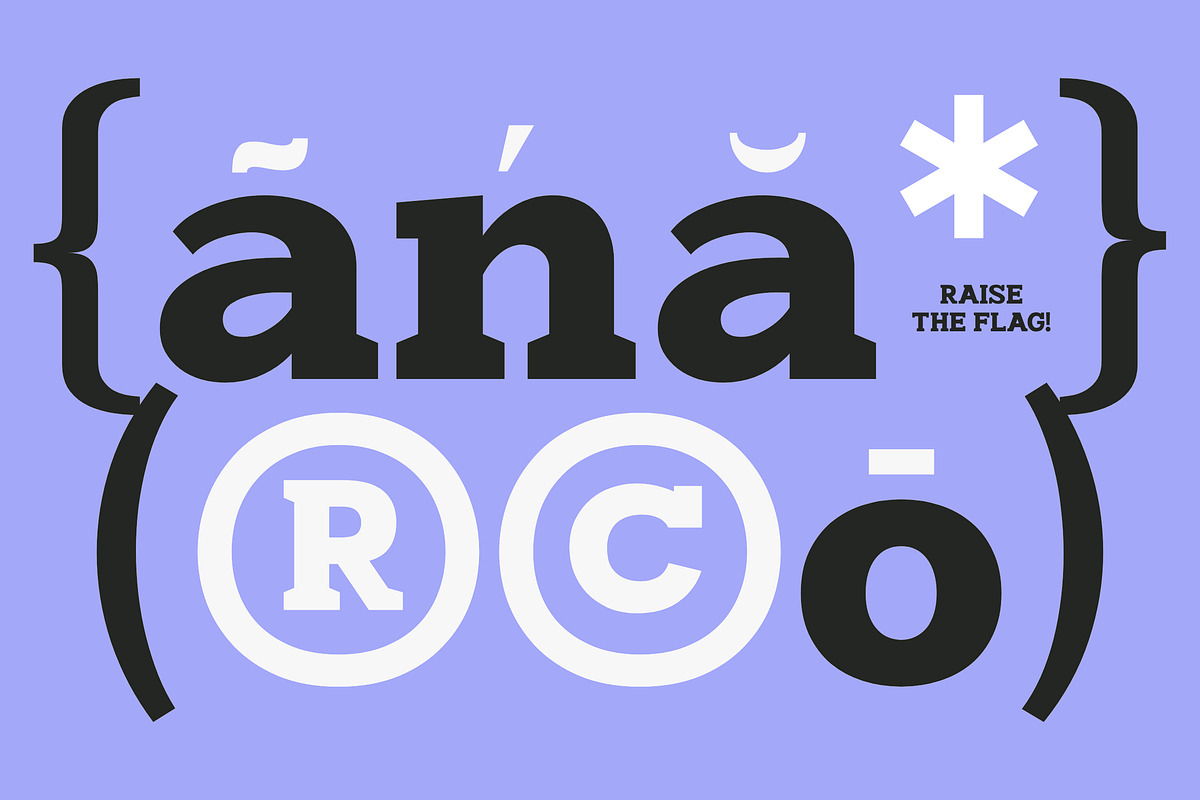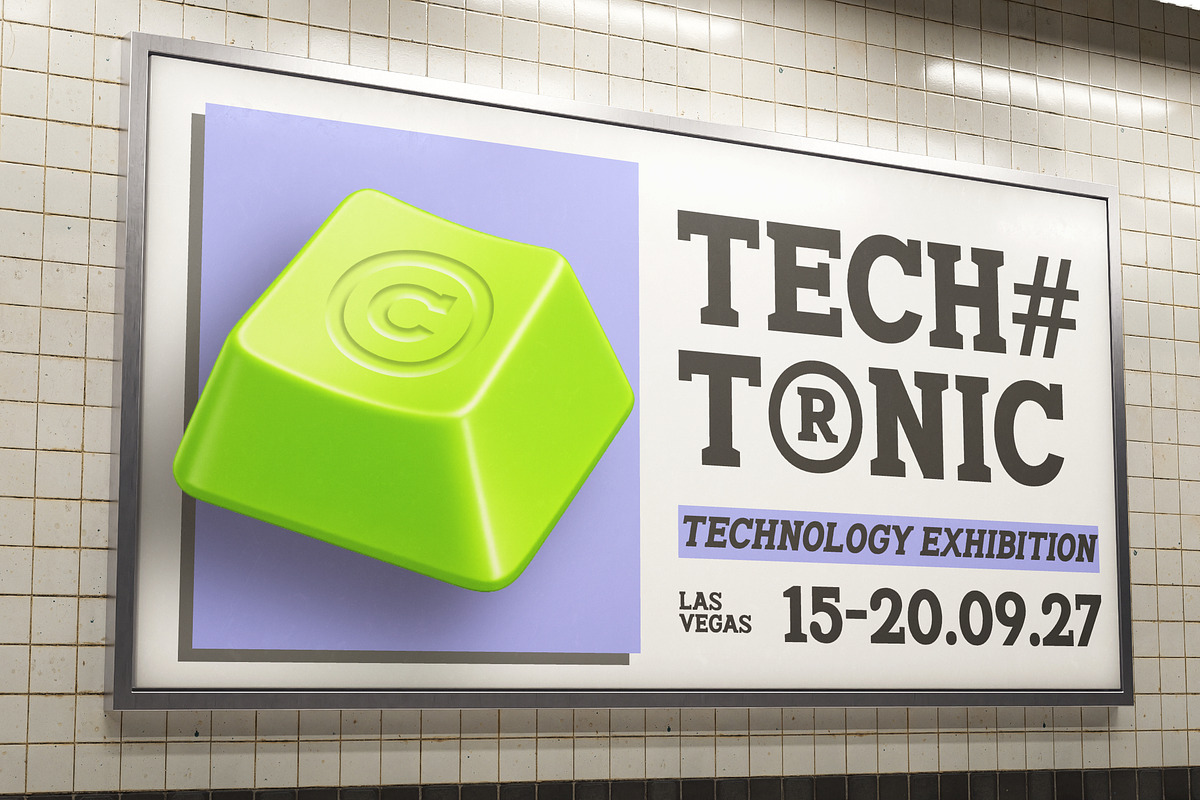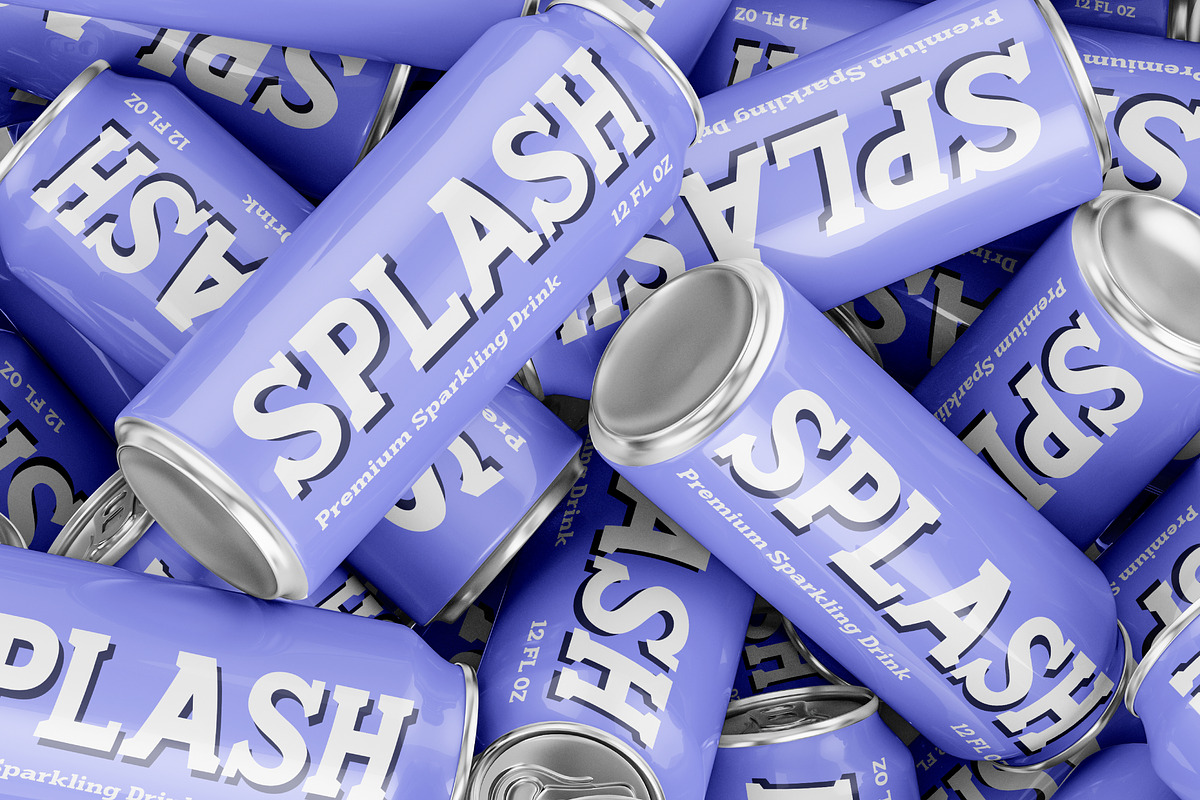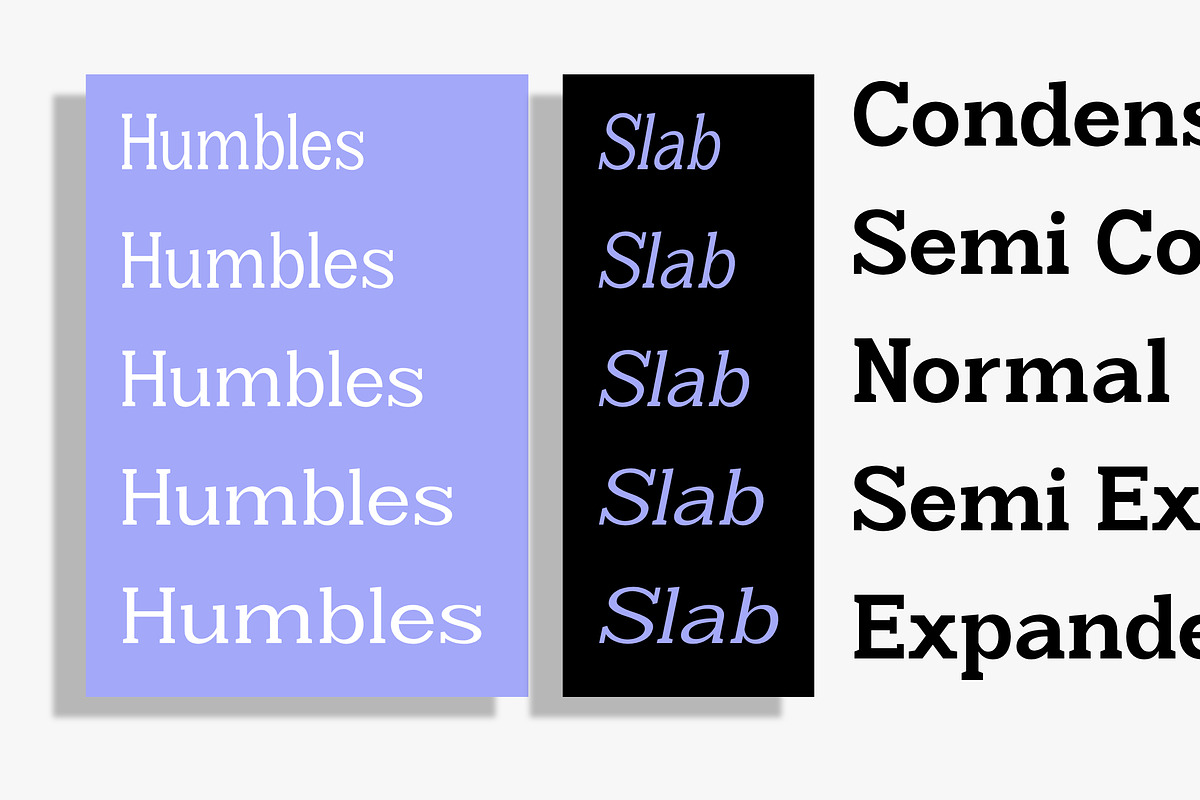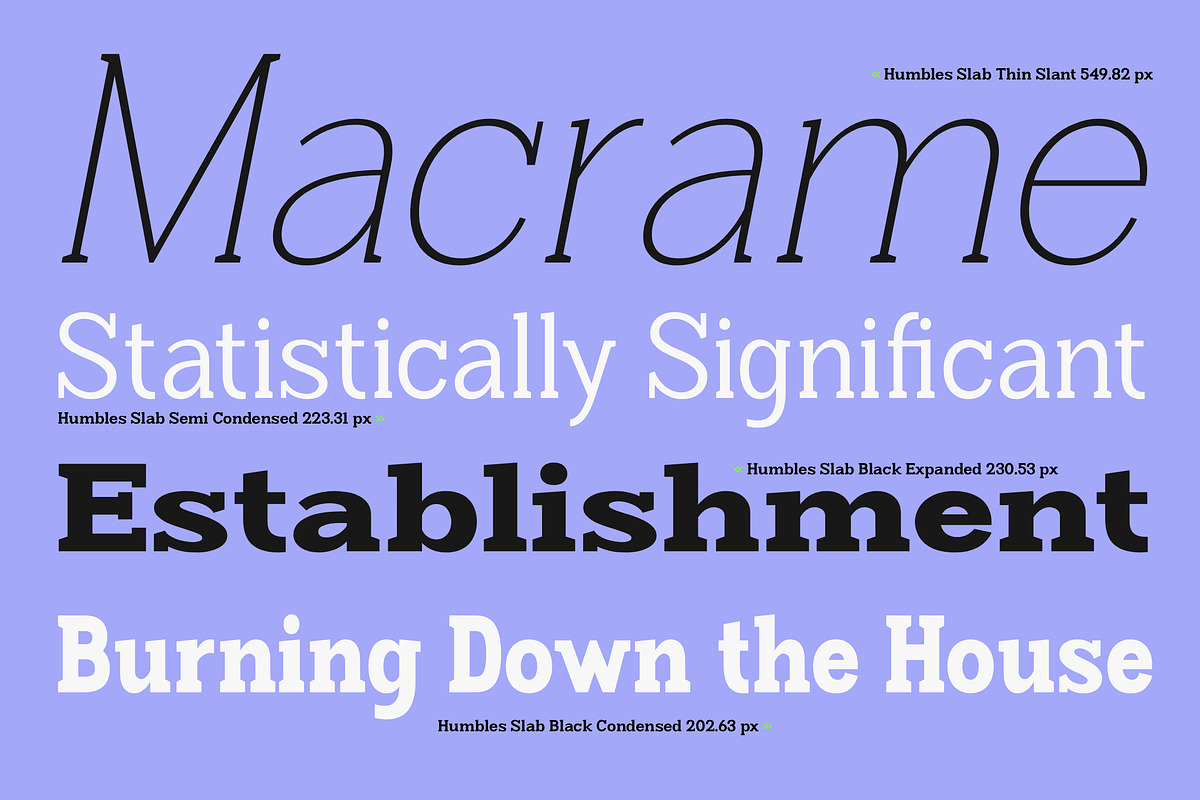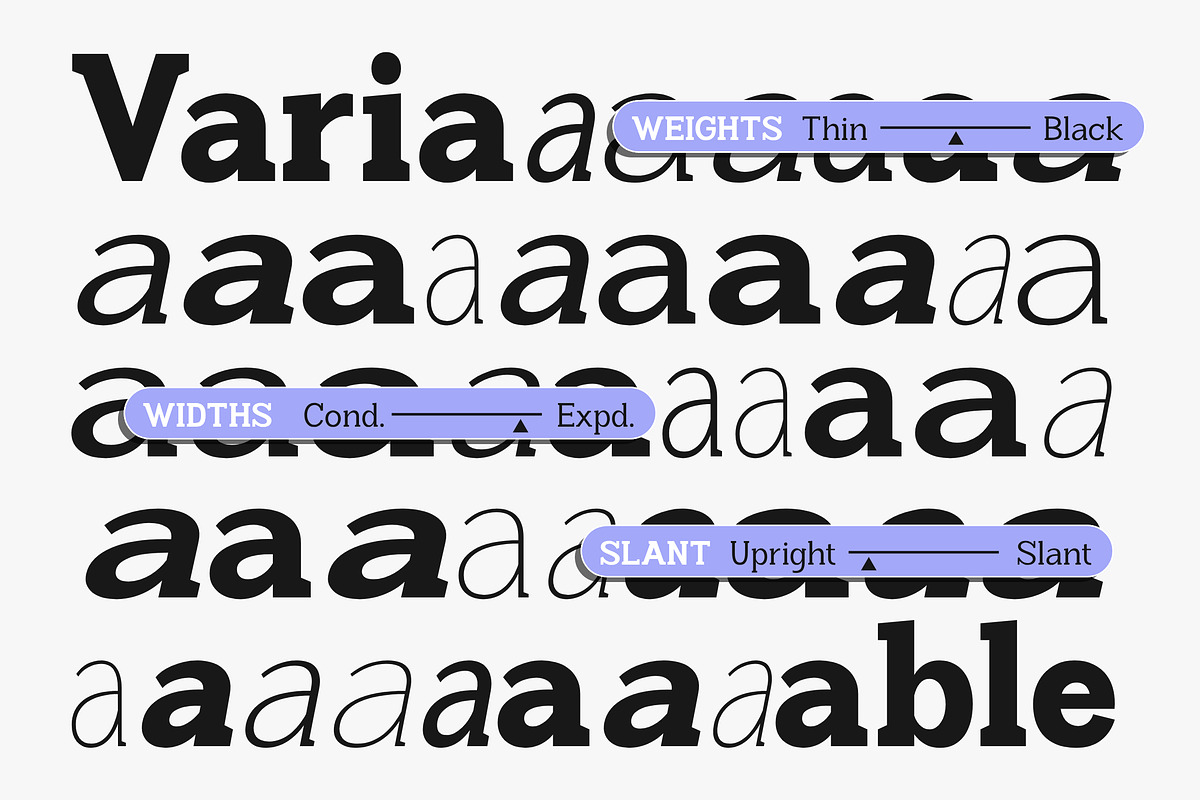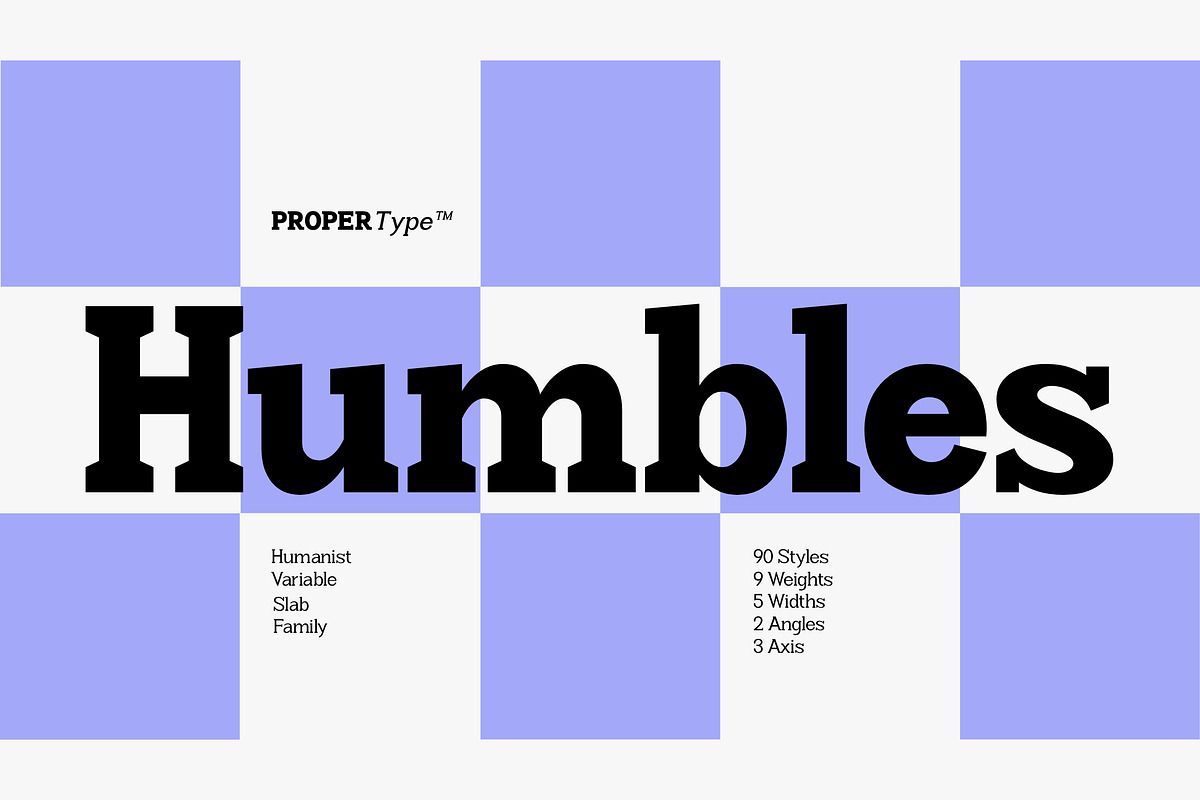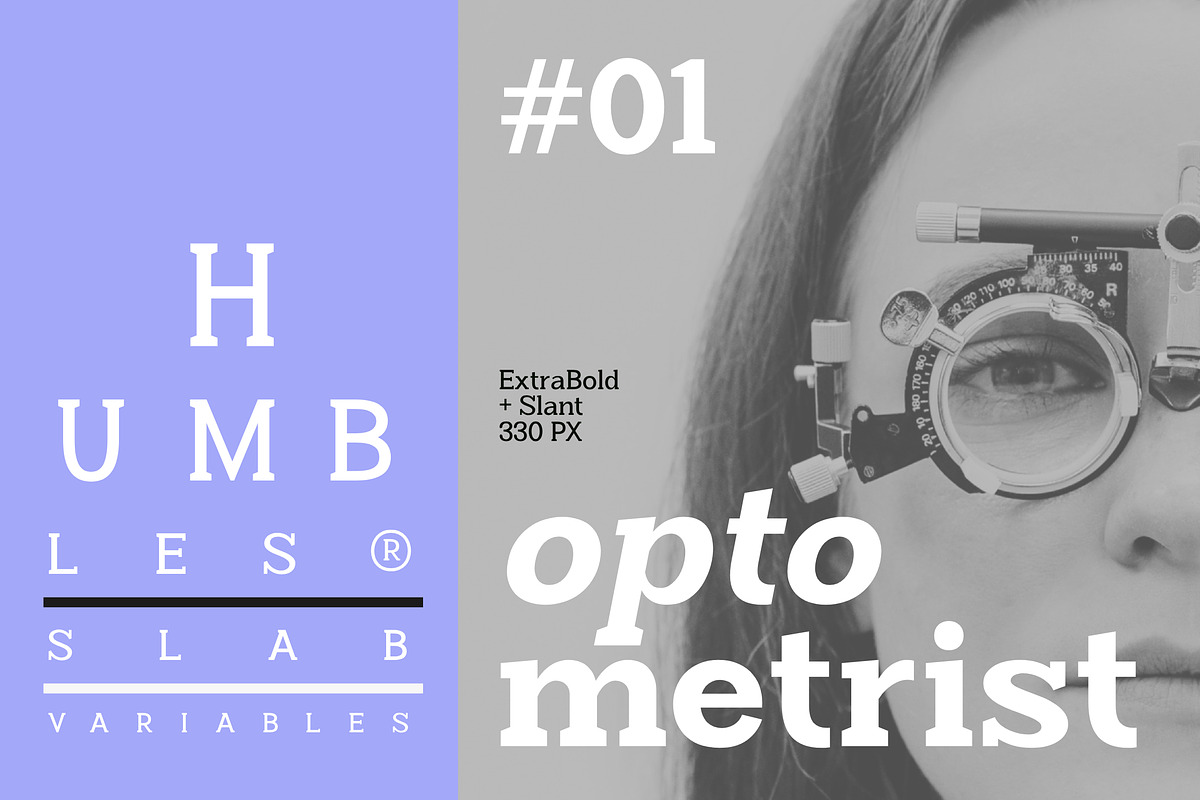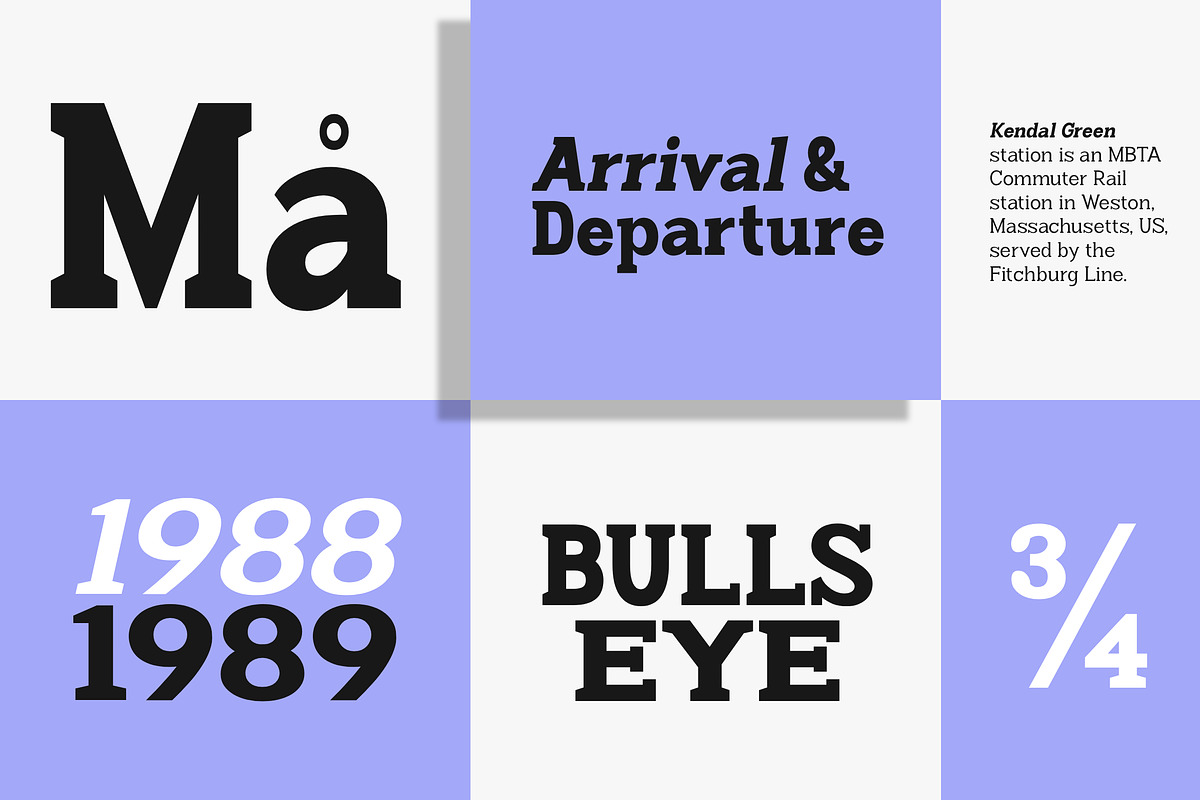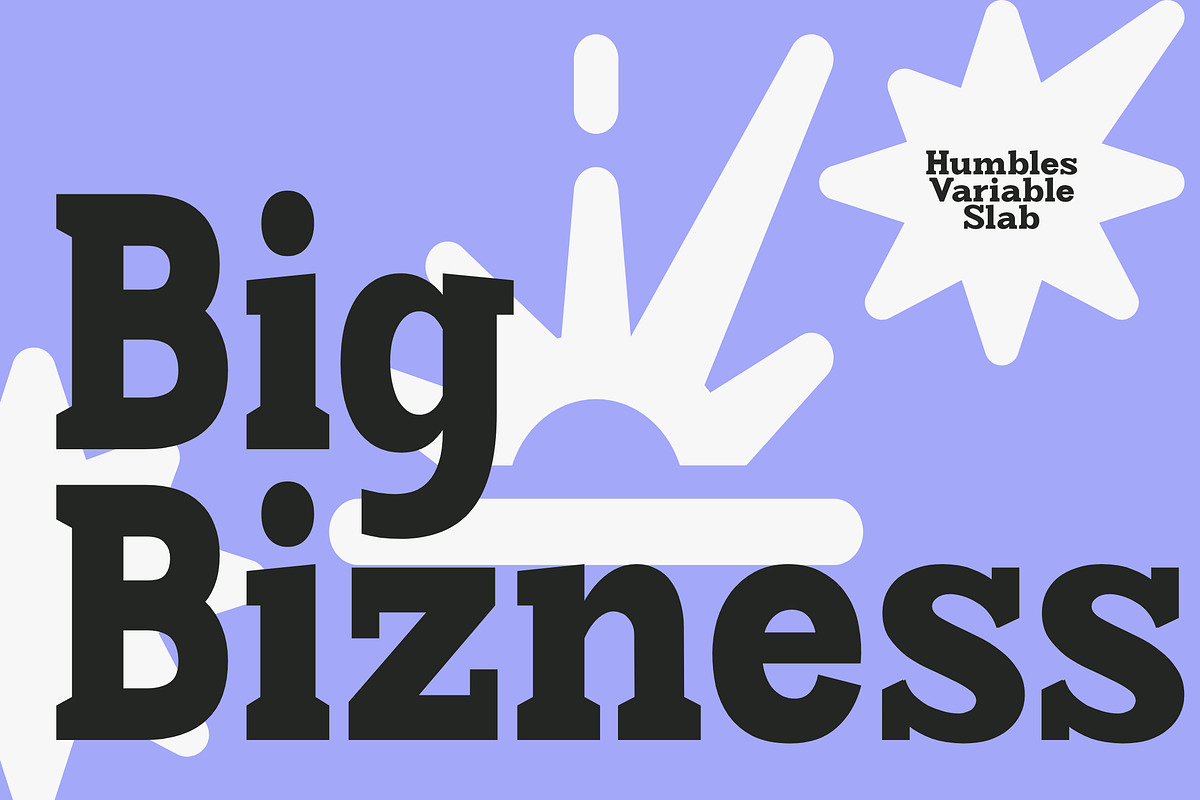
Humbles
Humbles is an elegant, modern, and contrasting Font serif font family. It comes in 180 styles, including both upright and italic styles, each with seven weights ranging from thin to bold. It's a versatile font perfect for any project, contrasting, modern, and easy to read. With this font, you can create logos, use it in advertisements, packaging, book and magazine covers, titles, descriptions, and more.
- Variable Serif Family
- Slanted and True Italic Designs
The Humbles family features include multilingual support for a variety of languages.